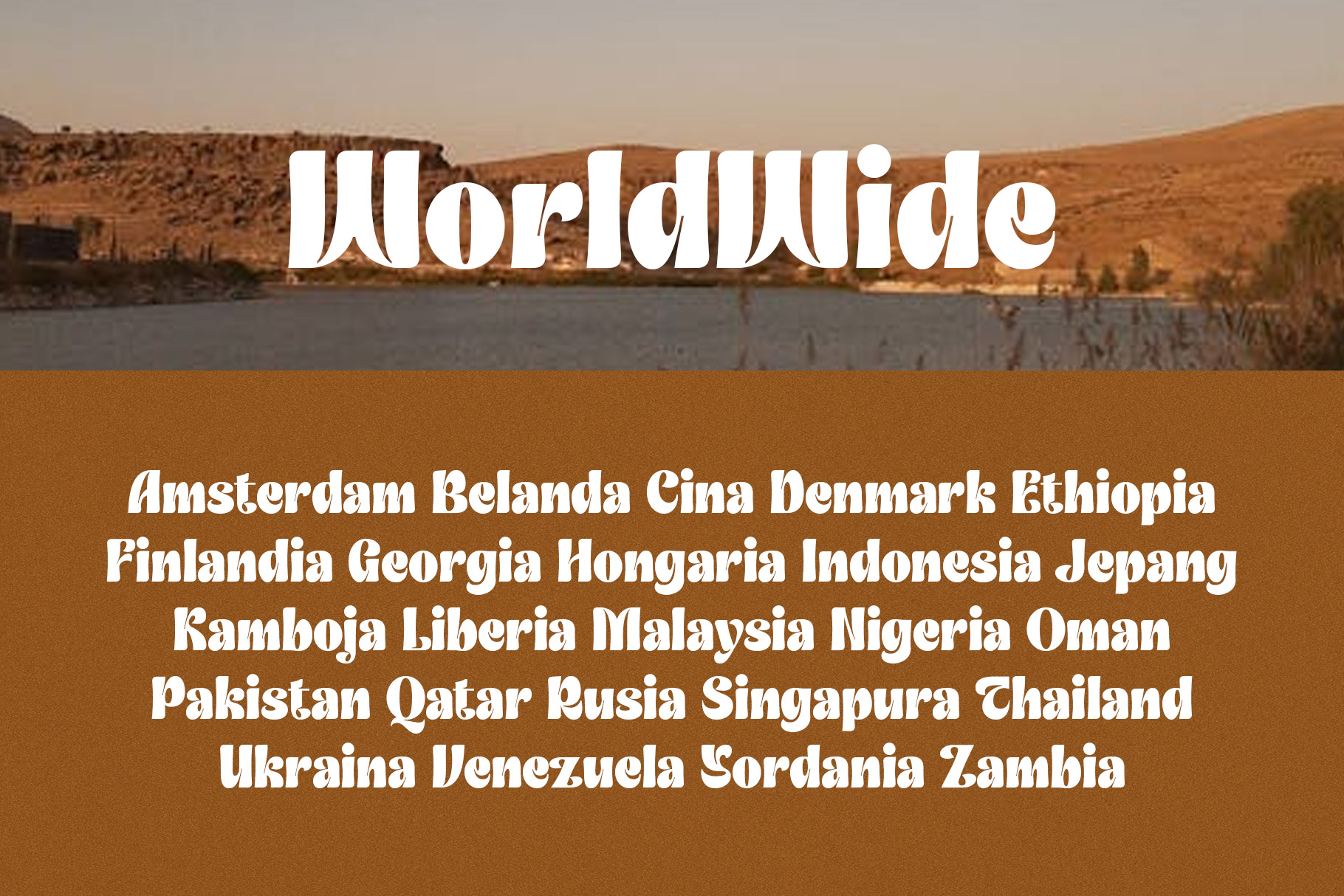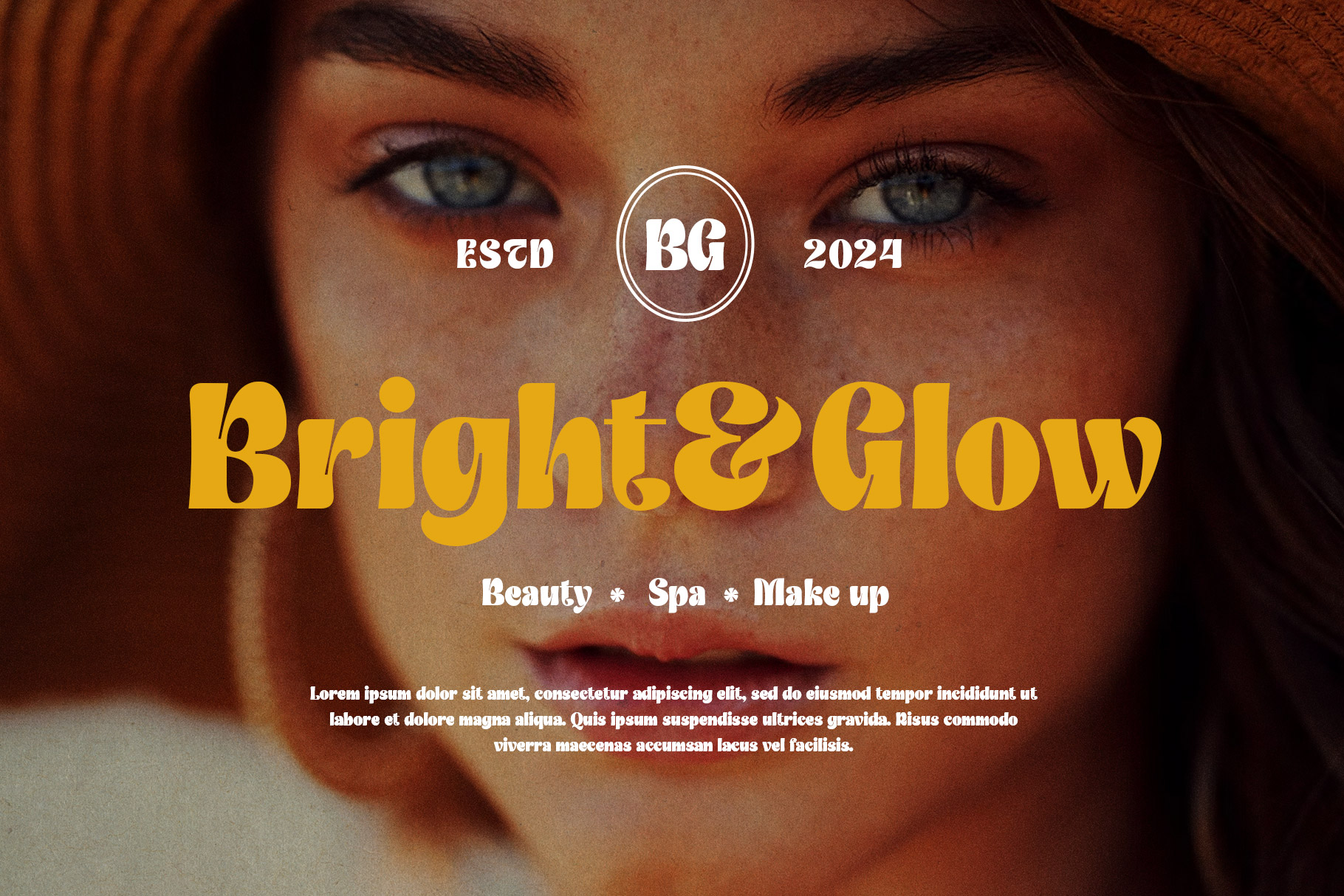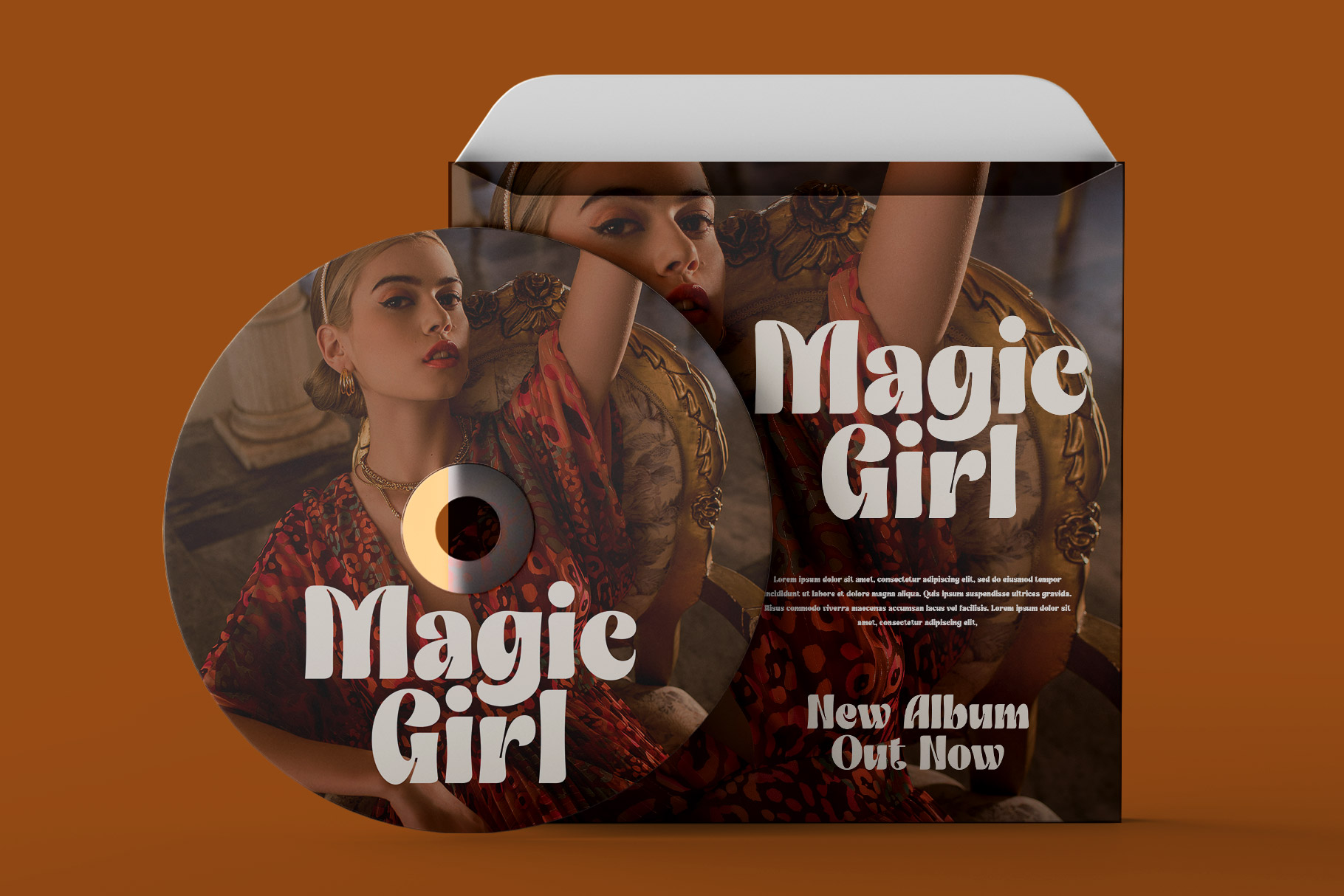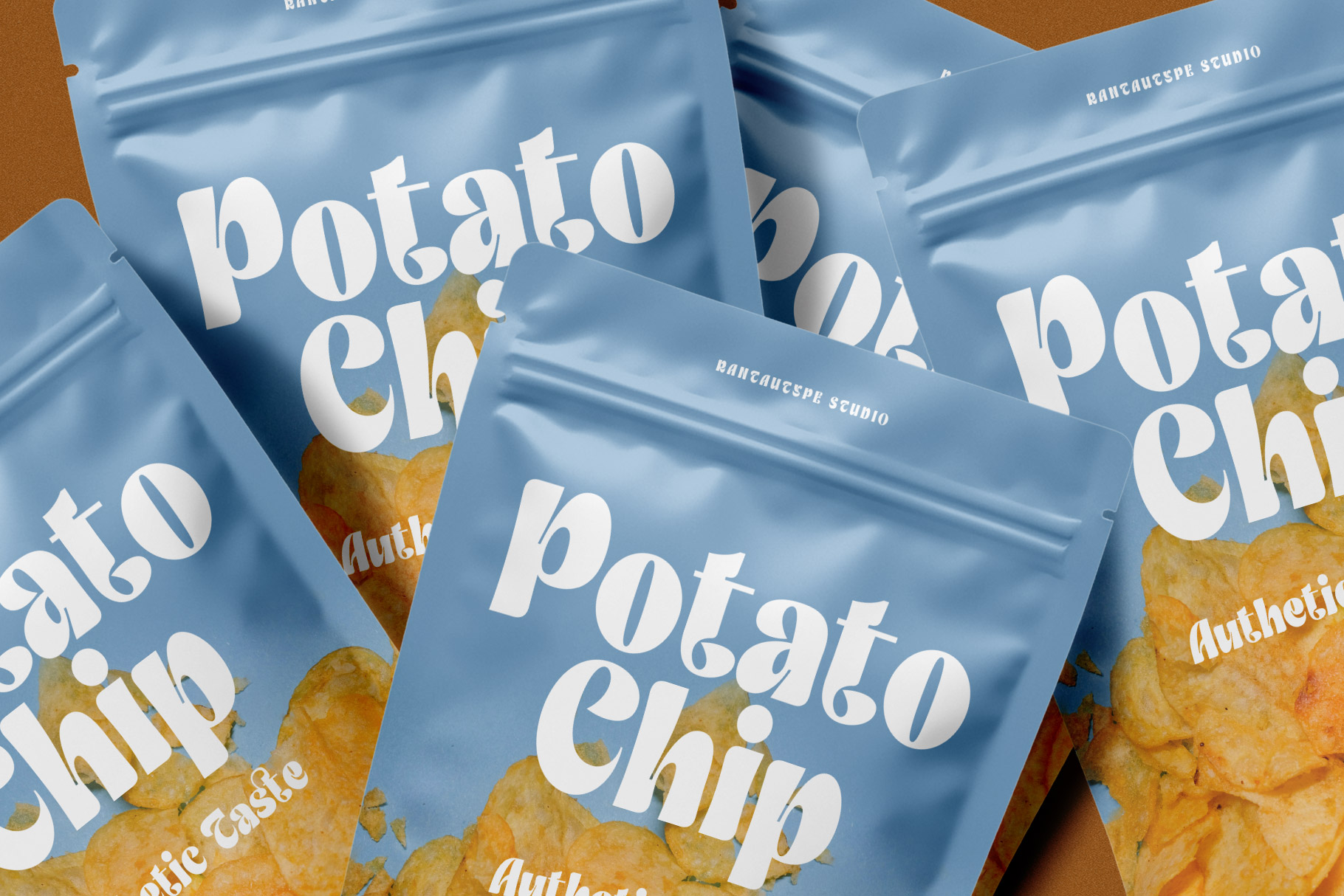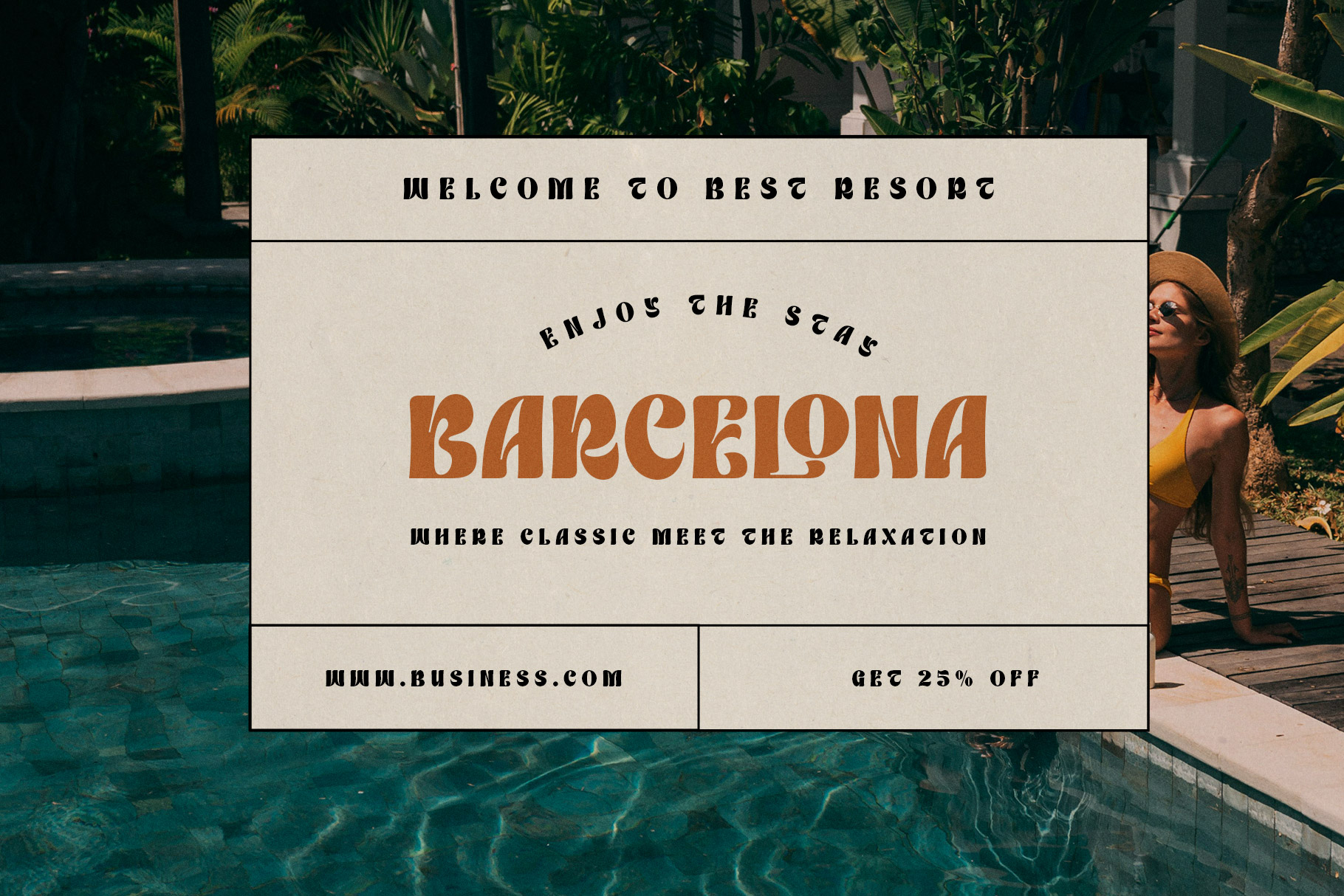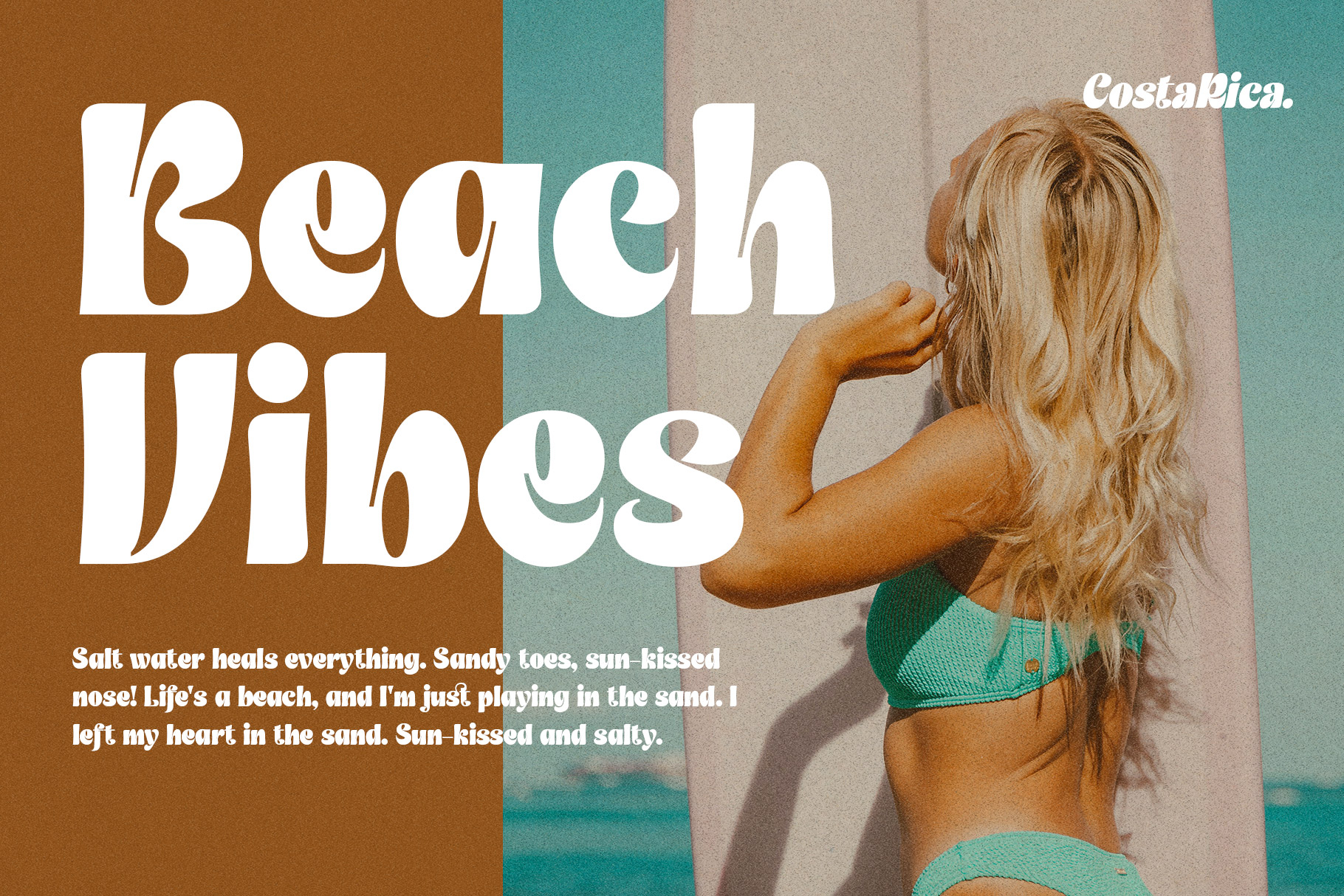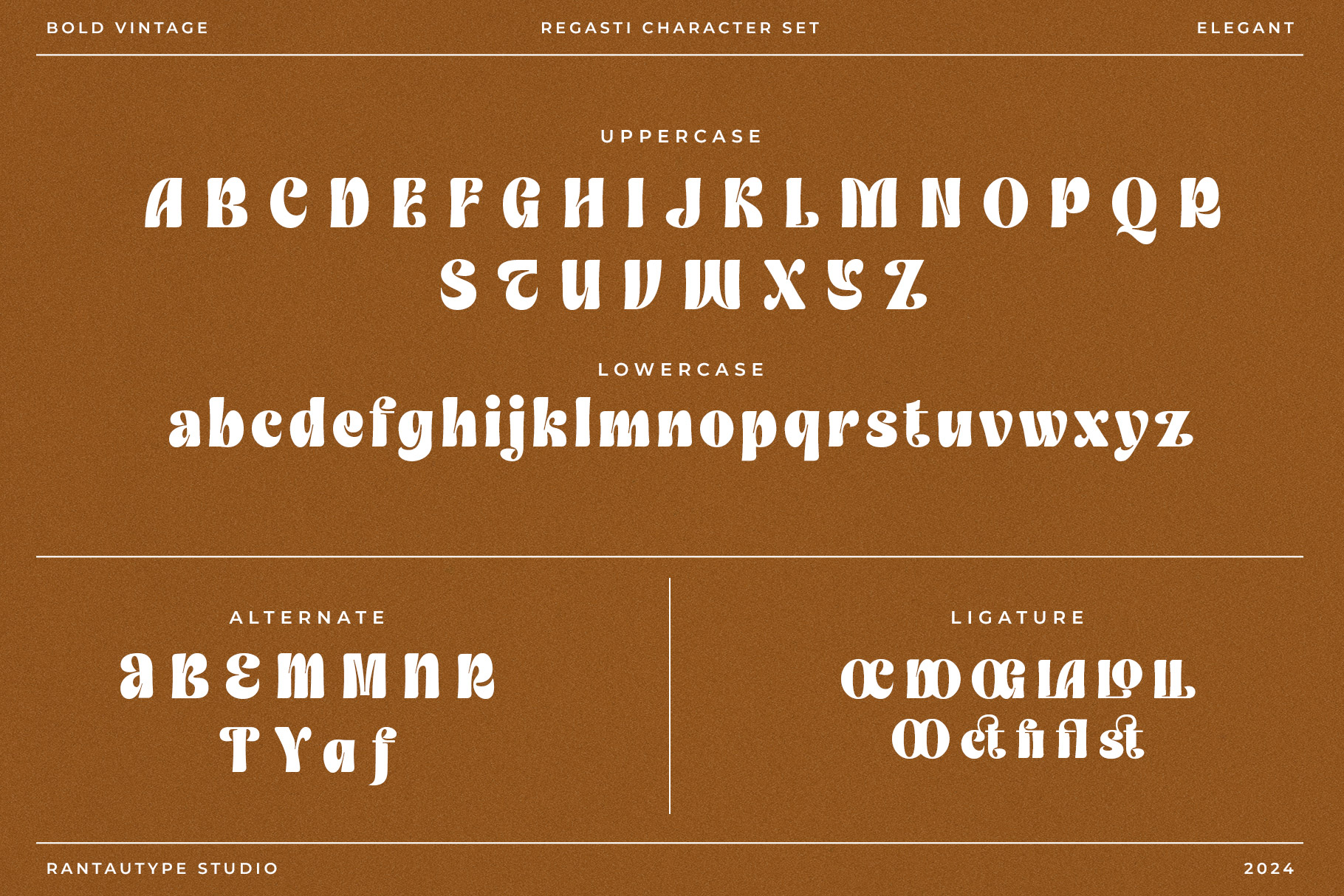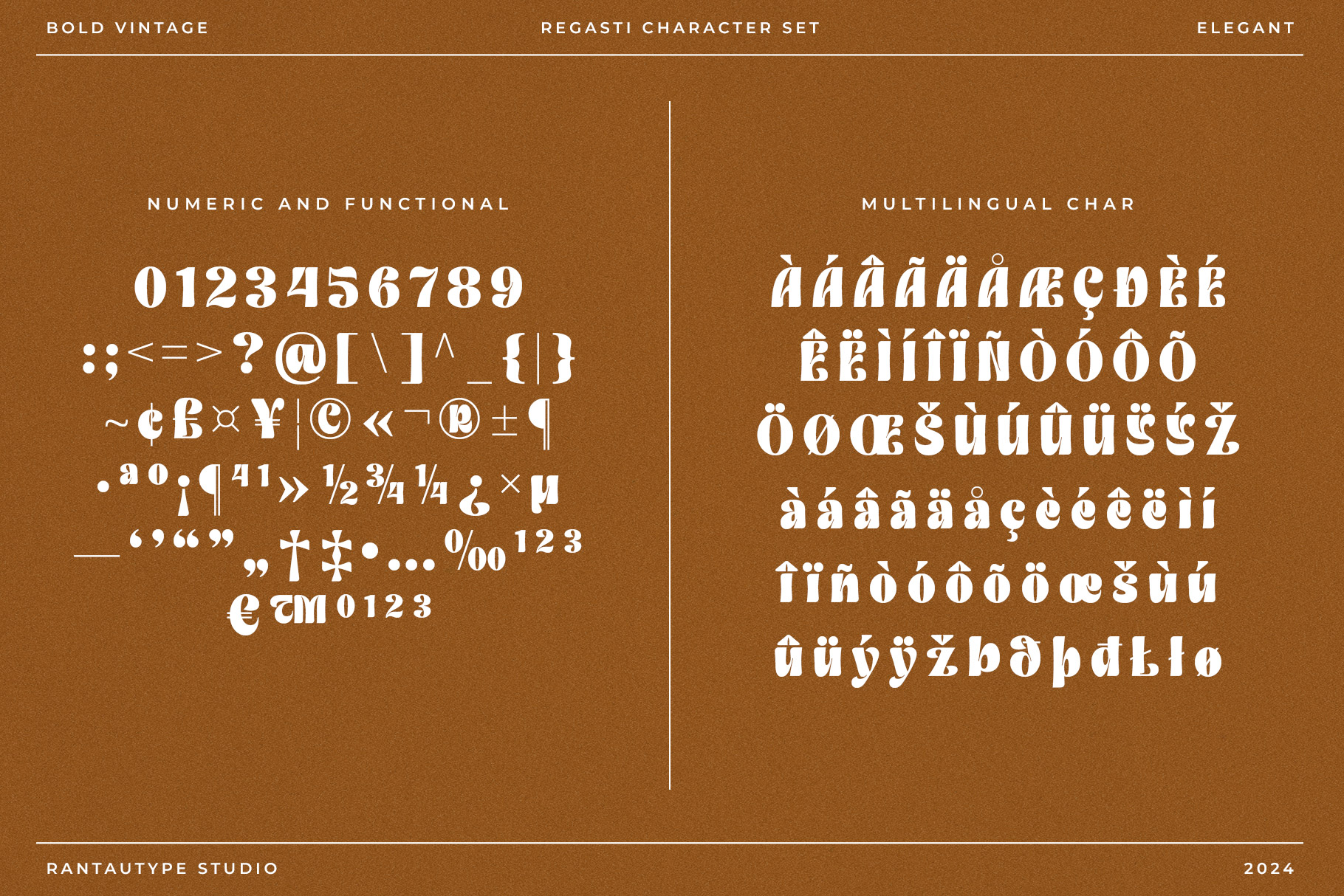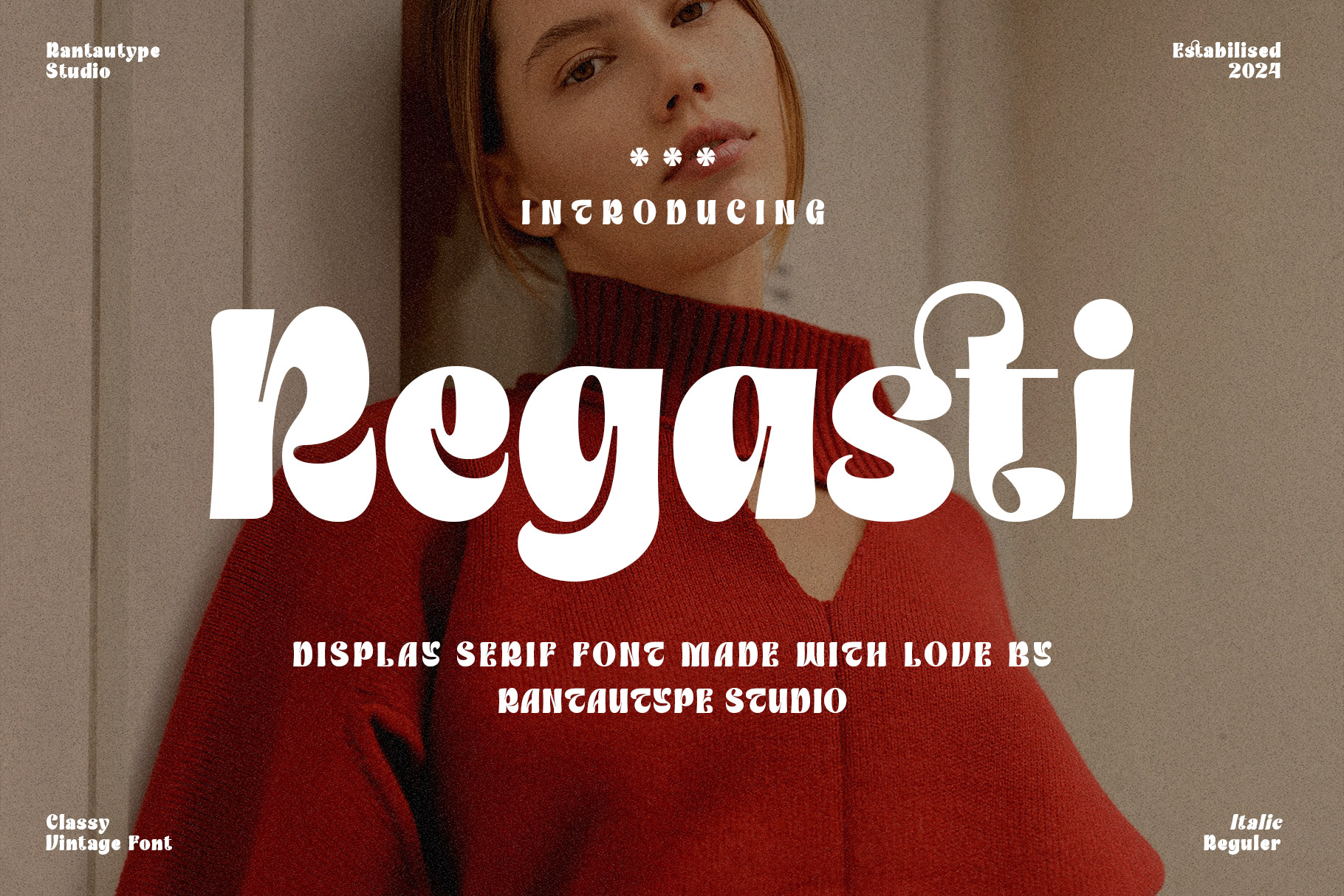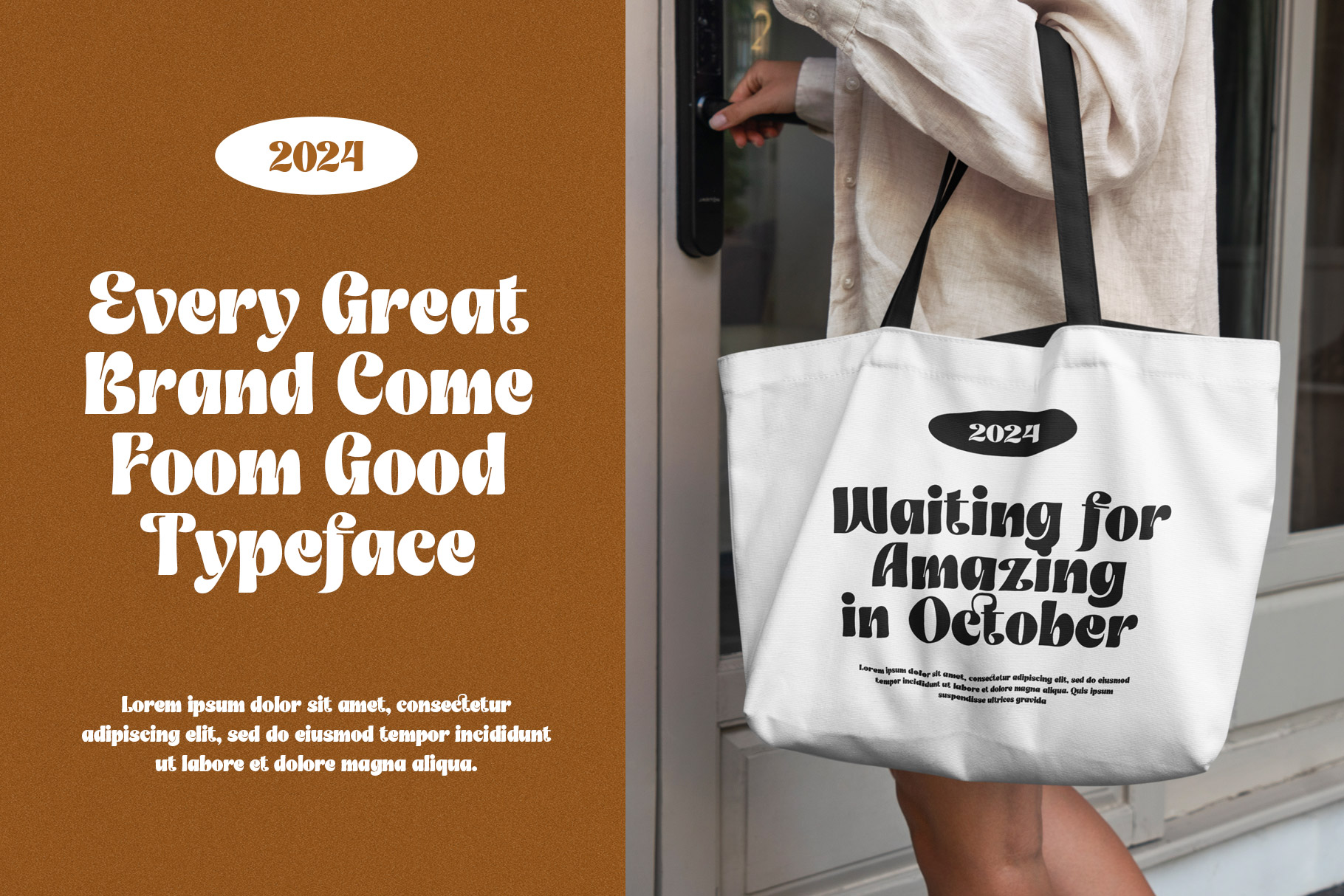
Regasti Vintage Display Font
Regasti is display vintage font with graceful curve and bold shape. Regasti bring harmonious dance curve and balance of beauty letterform.
Regasti is a perfectly choice for any creative endeavor, chic, lifestyle design such as logos, advertisements, stationery, branding project, display and magazine, invitation, corporate brand, product design, label, business project and many other project with beauty touch.